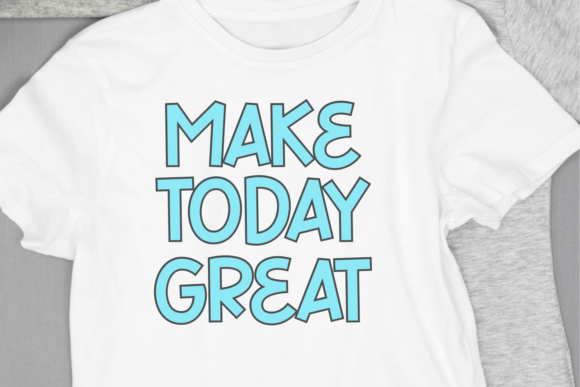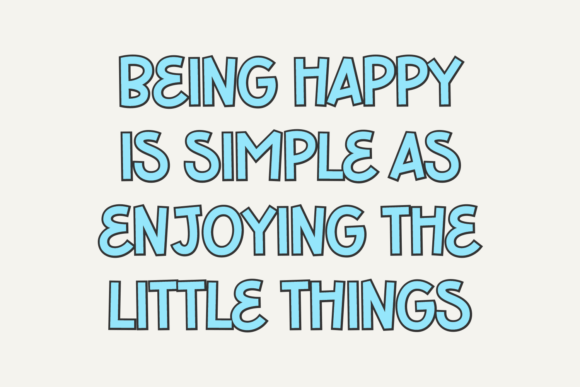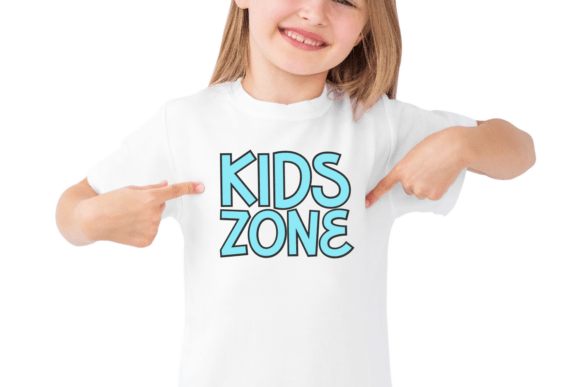
Discover the Magical World of Typography with December Charm Font
Are you ready to add a touch of whimsy and charm to your designs? Look no further than the enchanting December Charm font. This beguiling typeface is carefully crafted to bring a rustic, handcrafted feel to your projects, making it perfect for designers and crafters seeking to infuse their work with a playful allure.
The Unique Characteristics of December Charm
December Charm is characterized by its soft, rounded edges and slightly erratic baseline, giving it a bouncy and spirited demeanor. Each meticulously crafted letter is designed to leave a lasting visual impact, thanks to its distinctive stand-out quality. The font’s endearing appearance is reminiscent of hand-drawn lettering, resonating with an innate warmth and authenticity that sets it apart in the realm of typography.
Bringing Whimsy and Charm to Your Designs
The captivating allure of December Charm lies in its ability to infuse designs with an inviting, fun, and appealing ambiance. Whether you’re working on a branding project, packaging design, or digital artwork, this font is sure to add a touch of magic to your creations. Its unique blend of playfulness and sophistication makes it an excellent choice for designers seeking to create engaging and memorable designs.
One of the standout features of December Charm is its versatility. Being dexterously charming and highly readable, it lends itself to a diverse array of applications. From crafting eye-catching headlines to creating engaging body copy, this font is perfect for a wide range of design projects. Whether you’re working on a:
- Branding project: Create a lasting impression with December Charm’s unique and captivating typography.
- Packaging design: Add a touch of whimsy and charm to your product packaging with this delightful font.
- Digital artwork: Bring your digital creations to life with December Charm’s playful and inviting appearance.
- Stationery design: Add a personal touch to your stationery designs with this charming font.
The Benefits of Using December Charm
So, why choose December Charm for your design projects? Here are just a few benefits of using this enchanting font:
- Unique and eye-catching typography: December Charm’s distinctive appearance is sure to set your designs apart from the crowd.
- Highly readable: Despite its playful nature, December Charm remains highly readable, making it perfect for body copy and other text-based designs.
- Versatile: This font can be used for a wide range of design projects, from branding and packaging to digital artwork and stationery.
In conclusion, December Charm is a truly enchanting font that is sure to bring a touch of whimsy and charm to your designs. Its unique characteristics, versatility, and readability make it an excellent choice for designers and crafters seeking to create engaging and memorable designs. Whether you’re working on a branding project, packaging design, or digital artwork, December Charm is the perfect font to add a touch of magic to your creations.
Get Ready to Fall in Love with December Charm